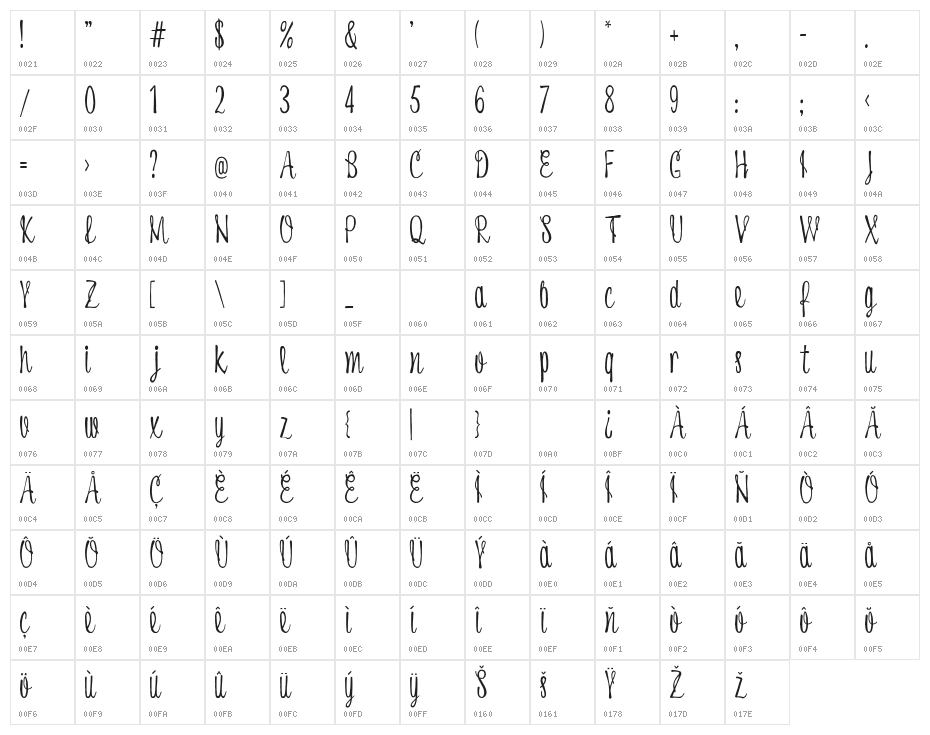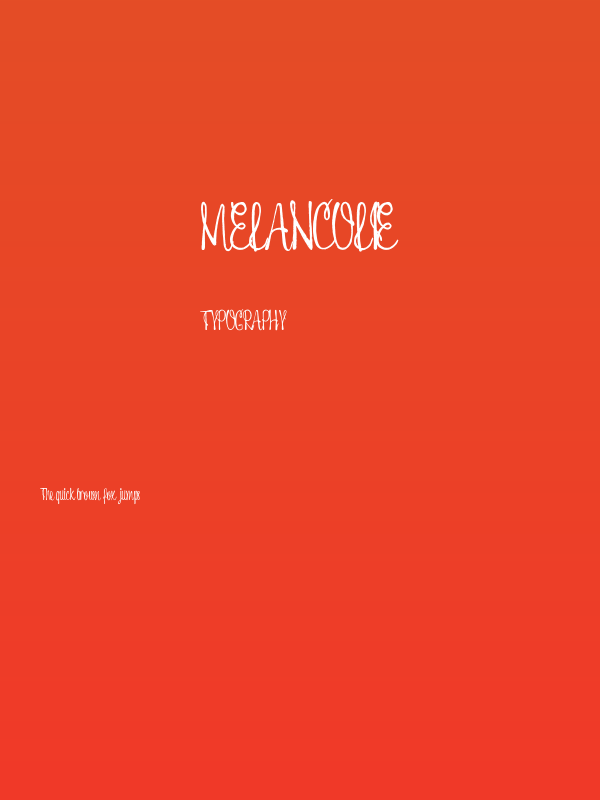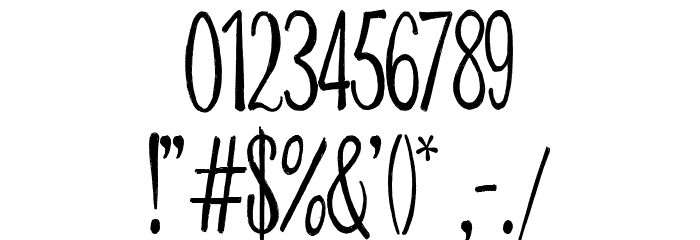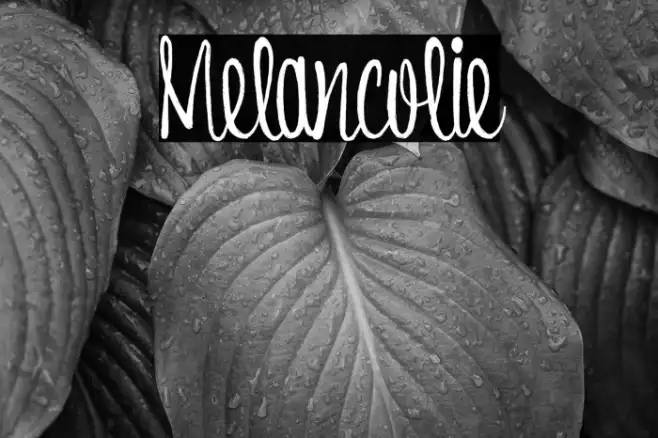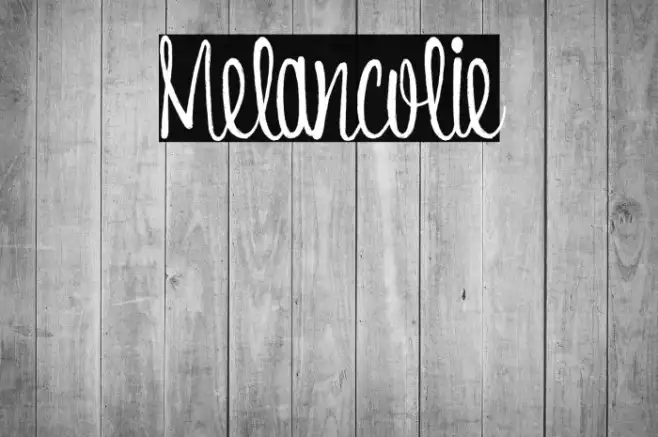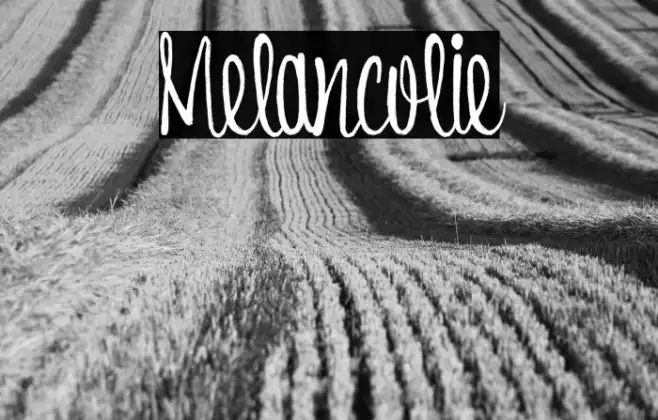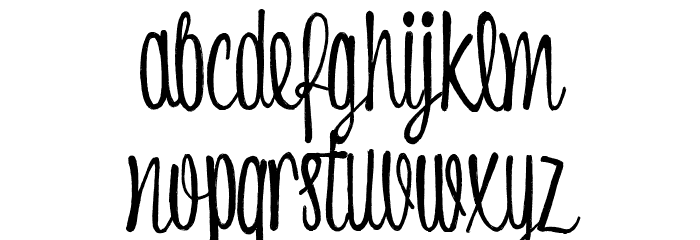
Melancolie Font
Melancolie Description
This font exhibits a charming handwritten style with a playful and whimsical character. The letters are slightly slanted, giving a sense of motion and fluidity. The strokes are consistent in width, providing a uniform appearance throughout the text. The uppercase letters are tall and elegant, while the lowercase letters maintain a friendly and approachable demeanor. The numbers and special characters are crafted with the same attention to detail, ensuring a cohesive look across all elements. This font's unique style makes it suitable for creative projects that require a personal touch.